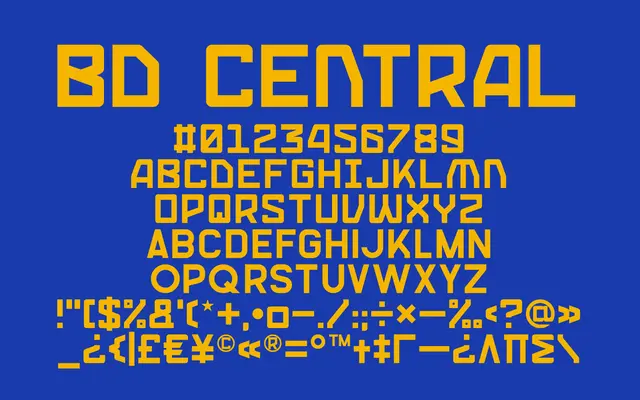
BD Central
A bold, uppercase-only display face originally drawn in 2002, with alternative capitals mapped to lowercase keys and broad Latin language coverage added in 2023.
Originally designed in 2002 and updated in 2023 with expanded language support, BD Central offers a single Regular weight comprising bold uppercase letterforms throughout. Alternative capital variants are accessible via the lowercase keys, giving some compositional flexibility within the all-caps constraint. The broad Latin coverage spans over 25 languages including Czech, Polish, Turkish and Icelandic.
A bold, uppercase-only alphabet designed for display use, with alternative capitals on lowercase keys; its single-weight, all-caps nature places it firmly in the display category.